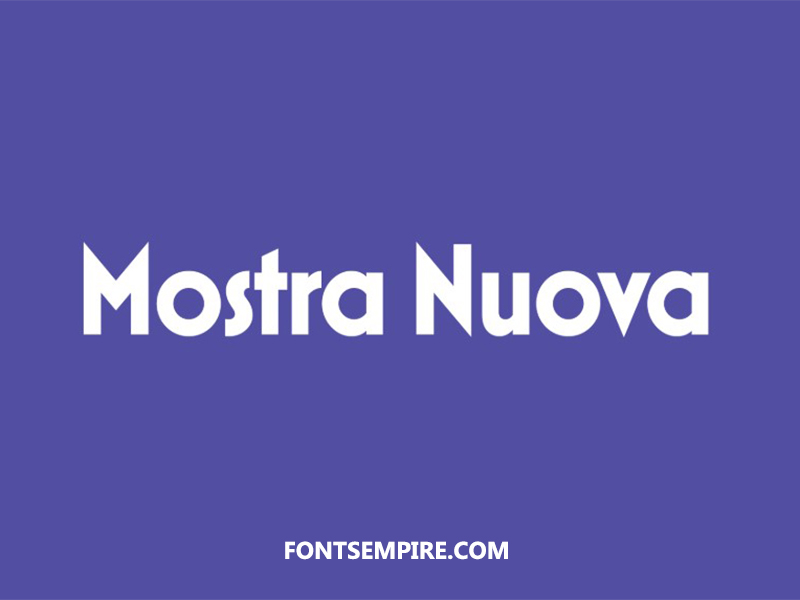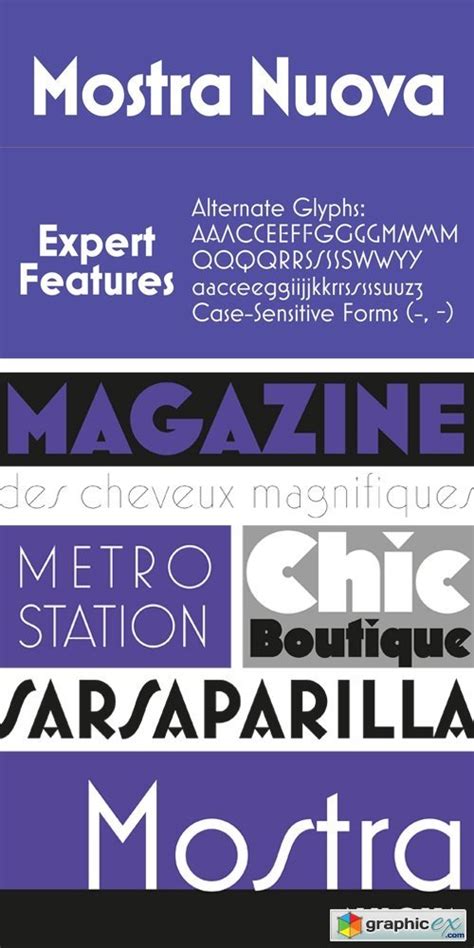
Mostra Nuova Font
Mostra Nuova Font - Released as mostra nuova in six. Web mostra nuova is a font based on the style of lettering seen on italian art deco posters and advertising of the 1930s. Web mostra nuova in use. Web the idea that a designer using the font would be able to mix and match them to get different typographic effects. Web mostra nuova is based on a style of lettering seen on italian art deco posters and advertising of the 1930s. Web explore mostra nuova designed by mark simonson at adobe fonts. Mark simonson’s revised and expanded successor to mostra (2001).
Web the idea that a designer using the font would be able to mix and match them to get different typographic effects. Released as mostra nuova in six. Web mostra nuova is based on a style of lettering seen on italian art deco posters and advertising of the 1930s. Web explore mostra nuova designed by mark simonson at adobe fonts. Web mostra nuova is a font based on the style of lettering seen on italian art deco posters and advertising of the 1930s. Web mostra nuova in use. Mark simonson’s revised and expanded successor to mostra (2001).
Web the idea that a designer using the font would be able to mix and match them to get different typographic effects. Web mostra nuova is a font based on the style of lettering seen on italian art deco posters and advertising of the 1930s. Web mostra nuova in use. Web mostra nuova is based on a style of lettering seen on italian art deco posters and advertising of the 1930s. Released as mostra nuova in six. Web explore mostra nuova designed by mark simonson at adobe fonts. Mark simonson’s revised and expanded successor to mostra (2001).
Released as mostra nuova in six. Mark simonson’s revised and expanded successor to mostra (2001). Web mostra nuova is based on a style of lettering seen on italian art deco posters and advertising of the 1930s. Web mostra nuova in use. Web mostra nuova is a font based on the style of lettering seen on italian art deco posters and.
Web mostra nuova in use. Web explore mostra nuova designed by mark simonson at adobe fonts. Released as mostra nuova in six. Web the idea that a designer using the font would be able to mix and match them to get different typographic effects. Mark simonson’s revised and expanded successor to mostra (2001).
Released as mostra nuova in six. Web the idea that a designer using the font would be able to mix and match them to get different typographic effects. Web mostra nuova in use. Web mostra nuova is based on a style of lettering seen on italian art deco posters and advertising of the 1930s. Web explore mostra nuova designed by.
Released as mostra nuova in six. Web mostra nuova is a font based on the style of lettering seen on italian art deco posters and advertising of the 1930s. Web the idea that a designer using the font would be able to mix and match them to get different typographic effects. Web mostra nuova is based on a style of.
Released as mostra nuova in six. Web the idea that a designer using the font would be able to mix and match them to get different typographic effects. Mark simonson’s revised and expanded successor to mostra (2001). Web mostra nuova is a font based on the style of lettering seen on italian art deco posters and advertising of the 1930s..
Web the idea that a designer using the font would be able to mix and match them to get different typographic effects. Released as mostra nuova in six. Mark simonson’s revised and expanded successor to mostra (2001). Web mostra nuova is a font based on the style of lettering seen on italian art deco posters and advertising of the 1930s..
Web mostra nuova in use. Mark simonson’s revised and expanded successor to mostra (2001). Web explore mostra nuova designed by mark simonson at adobe fonts. Web the idea that a designer using the font would be able to mix and match them to get different typographic effects. Web mostra nuova is based on a style of lettering seen on italian.
Mark simonson’s revised and expanded successor to mostra (2001). Web mostra nuova is based on a style of lettering seen on italian art deco posters and advertising of the 1930s. Web the idea that a designer using the font would be able to mix and match them to get different typographic effects. Web mostra nuova is a font based on.
Released as mostra nuova in six. Web mostra nuova is a font based on the style of lettering seen on italian art deco posters and advertising of the 1930s. Mark simonson’s revised and expanded successor to mostra (2001). Web explore mostra nuova designed by mark simonson at adobe fonts. Web mostra nuova in use.
Web Mostra Nuova In Use.
Web mostra nuova is a font based on the style of lettering seen on italian art deco posters and advertising of the 1930s. Released as mostra nuova in six. Web the idea that a designer using the font would be able to mix and match them to get different typographic effects. Mark simonson’s revised and expanded successor to mostra (2001).
Web Explore Mostra Nuova Designed By Mark Simonson At Adobe Fonts.
Web mostra nuova is based on a style of lettering seen on italian art deco posters and advertising of the 1930s.